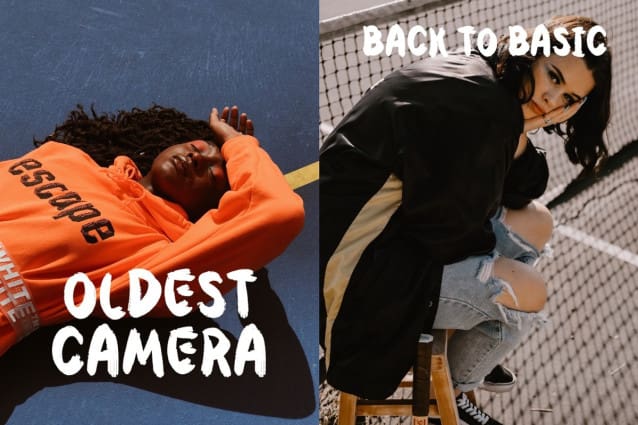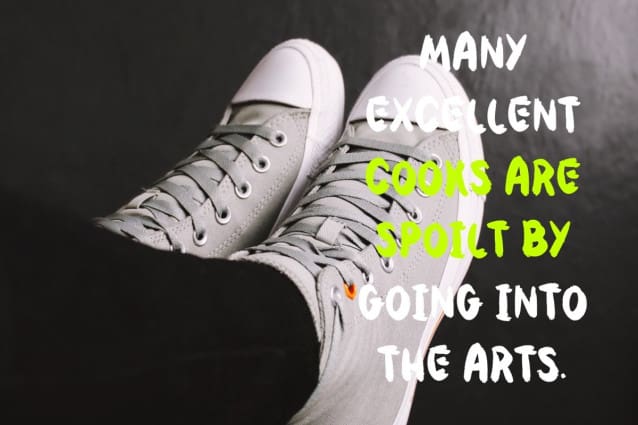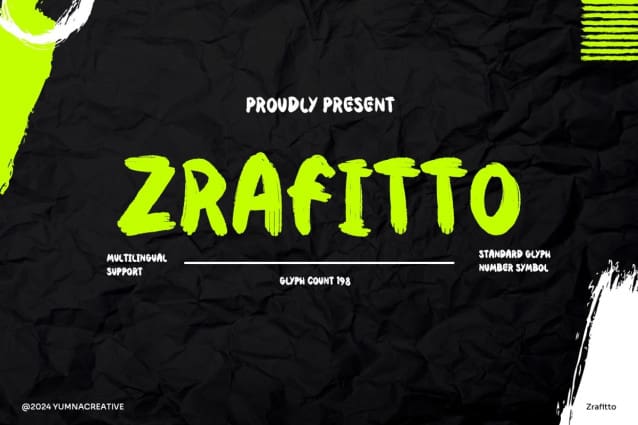
Zrafitto Brush Font
Zrafitto Brush Font is a beautiful and expressive handwritten display brush font. You can use it for anything ranging from t-shirts, book designs, and greeting cards to stickers and posters, packaging designs, or anything that needs a casual touch, it will be your perfect font to pick. Fall in love with its incredibly versatile style, and use it to create lovely designs!